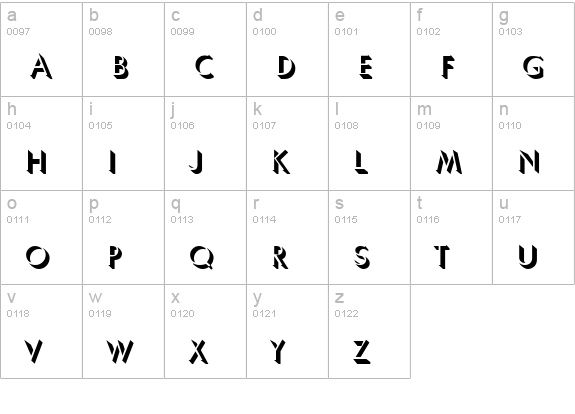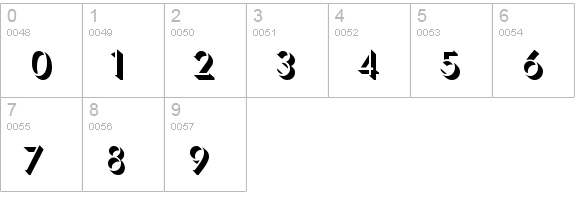
Chronik Font Details
Chronik font is a modern and elegant typeface that combines classic elements with a contemporary twist. Its sleek and sophisticated design makes it perfect for a wide range of projects, from branding to editorial design. The clean lines and sharp edges of Chronik font give it a professional and polished look that will elevate any piece of work. What makes Chronik font even more appealing is that it is available for free download at FontsMarket.com. This means that you can easily access this high-quality font without any cost, making it a valuable addition to your design toolkit. Whether you are a seasoned designer looking for a fresh new font or a beginner exploring typography for the first time, Chronik font is a fantastic choice that won't break the bank. Download it today and add a touch of sophistication to your next project.